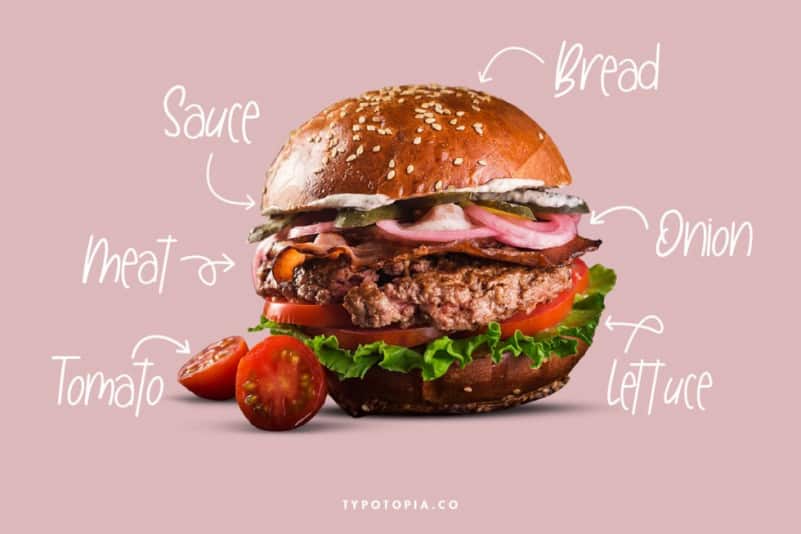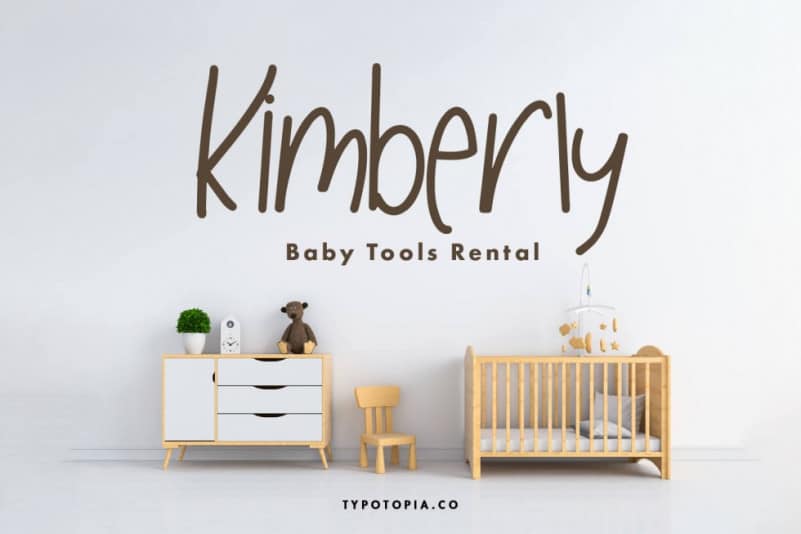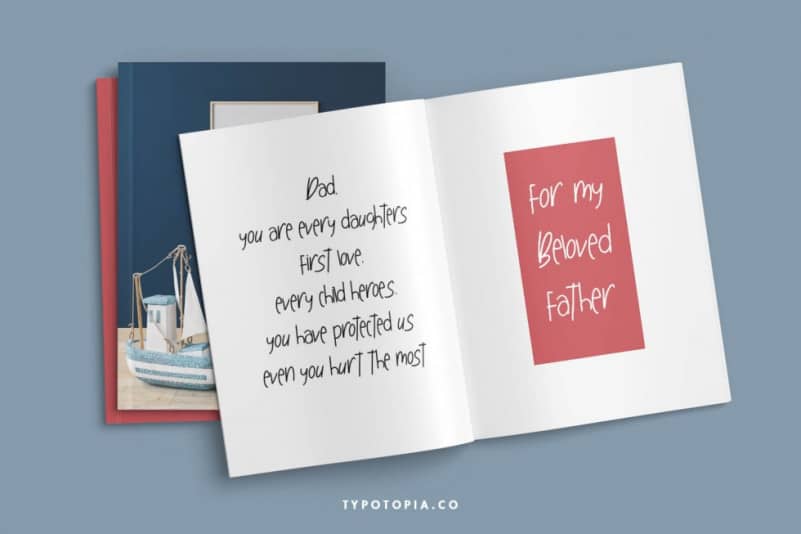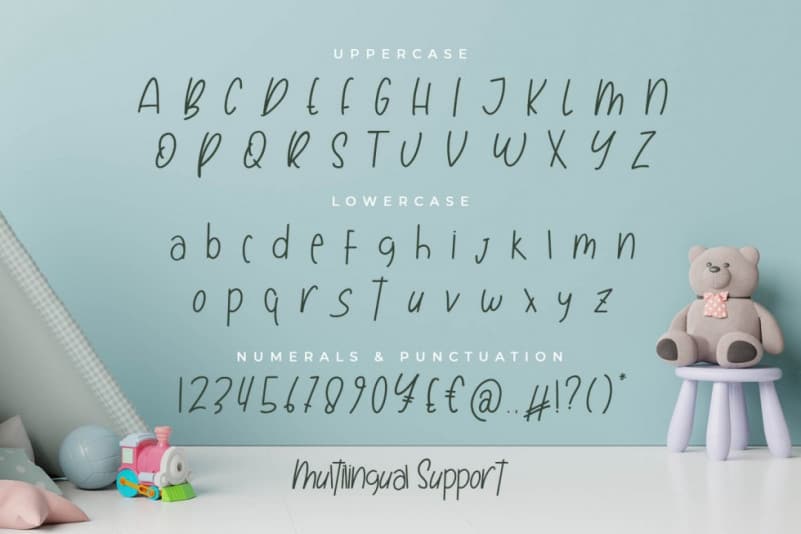
Swit Pruit Handwritten Font
Swit Pruit Handwritten Font A Handwritten with Fun Style. This type of font perfectly made to be applied especially for logos, Poster, stationery, magazines, menus, books, invitations, greeting cards, packaging, labels, apparel, marketing, business cards, etc.